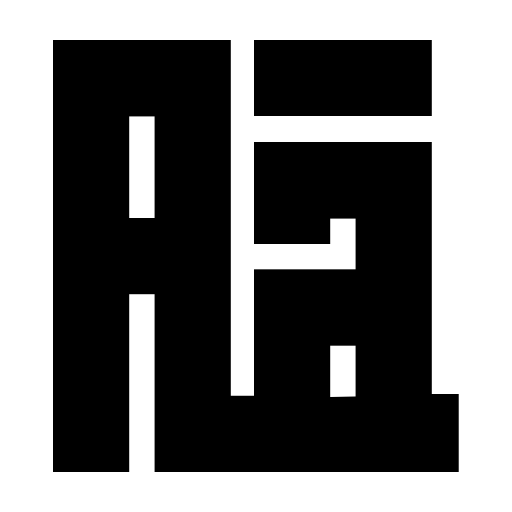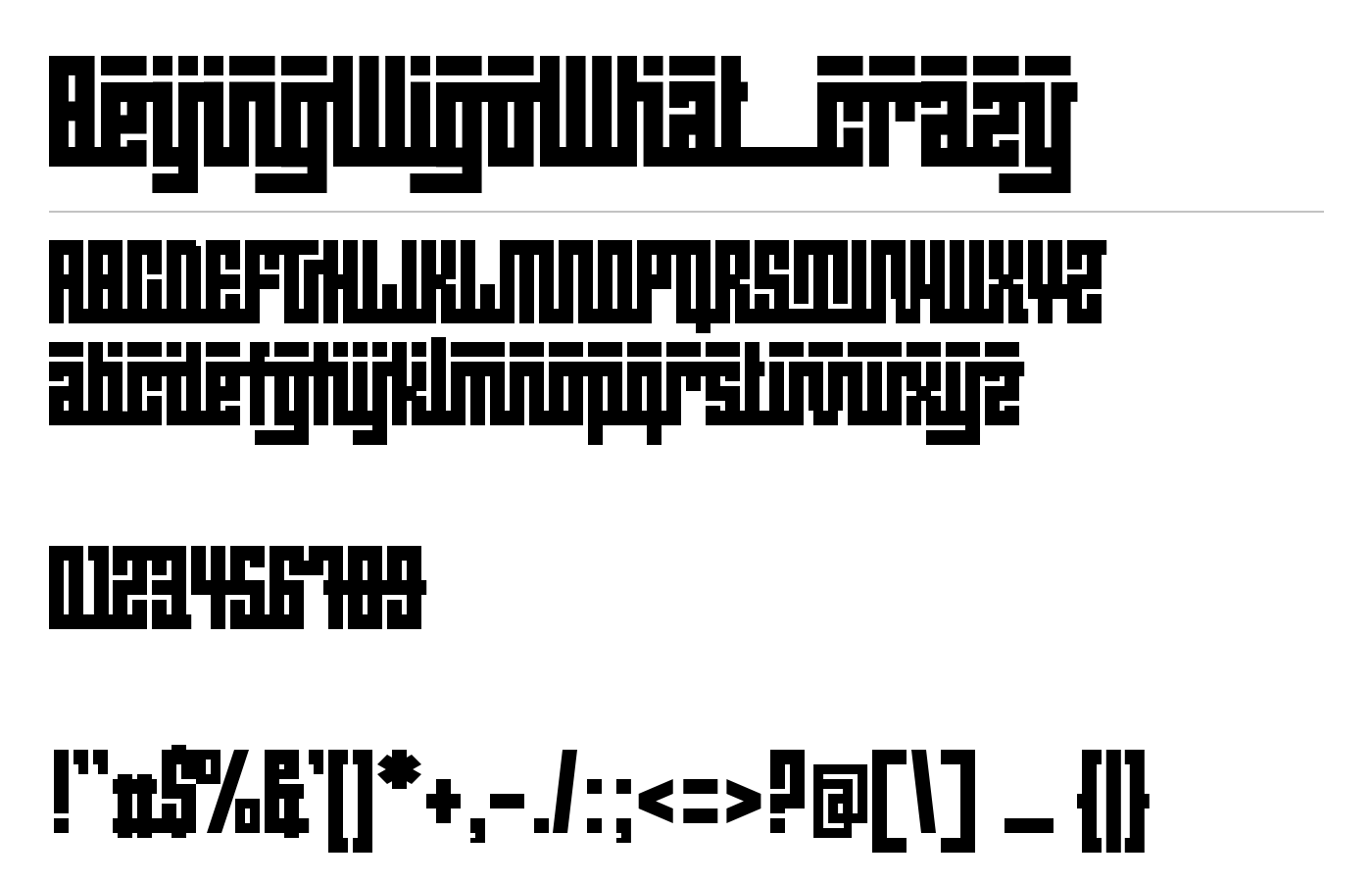
BeijingWigoWhat_crazy is a bold, geometric sans serif font with a strikingly blocky and condensed design that creates a dense, techno-inspired aesthetic. Its tall, rigid letterforms and minimal contrast give it a modern, experimental vibe, perfect for eye-catching headlines, posters, or branding that aims to stand out with a futuristic and unconventional edge. This font works best where bold impact and originality are key, making it ideal for creative projects in technology, gaming, or streetwear.
BeijingWigoWhat_crazy Font
About BeijingWigoWhat_crazy Font